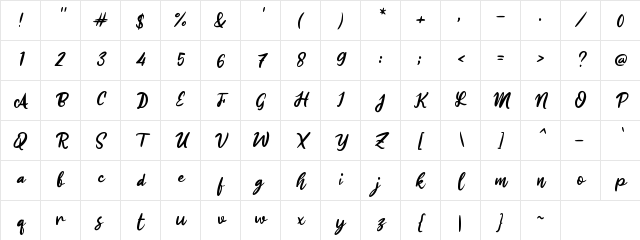
h Hellaby Village Regular
Designer: Wahyu Eka Prasetya
Design Context for h Hellaby Village
h Hellaby Village is a composed and adaptable typeface that performs quietly and consistently across a wide range of design contexts.